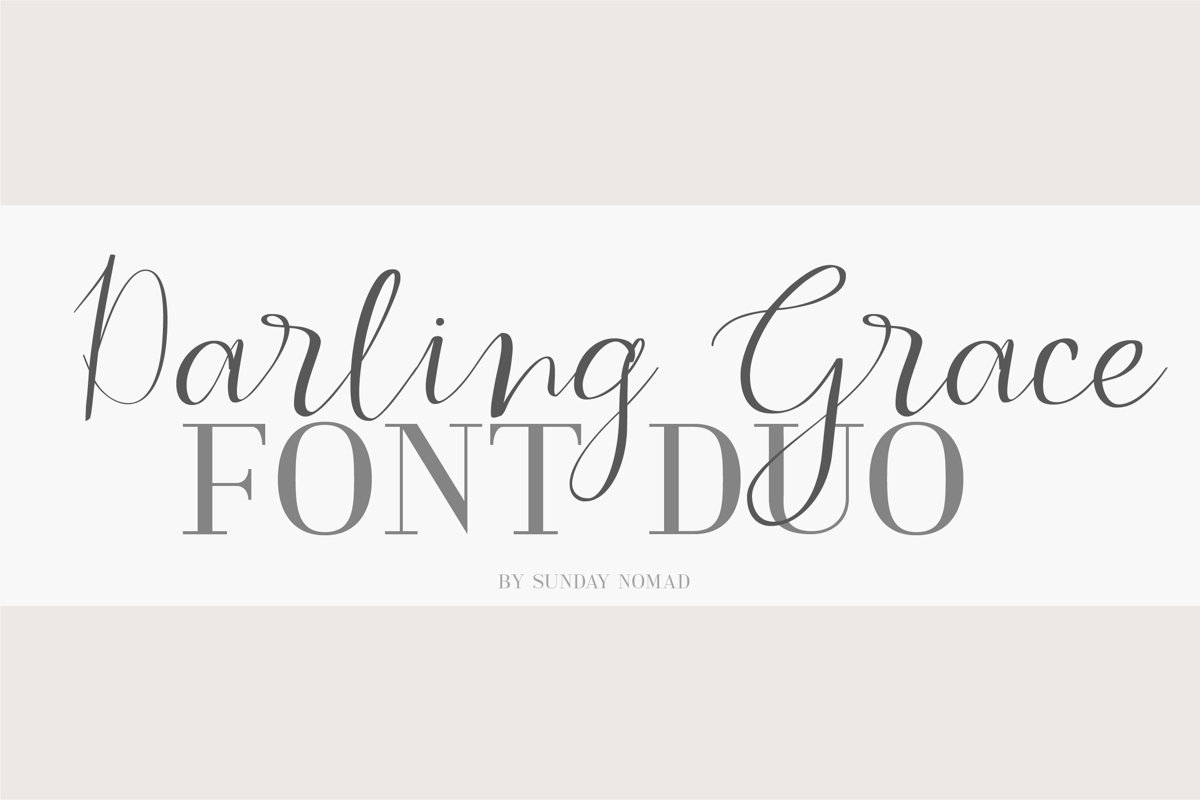
Darling Grace
Introducing Darling Grace!
Brand new Font Duo from Sunday Nomad.
Darling Grace is dreamy and elegant, modern as well as classic. The combination of the two will work well for branding, card design, magazine spreads, and websites.
Truly versatile the fonts support various European languages.